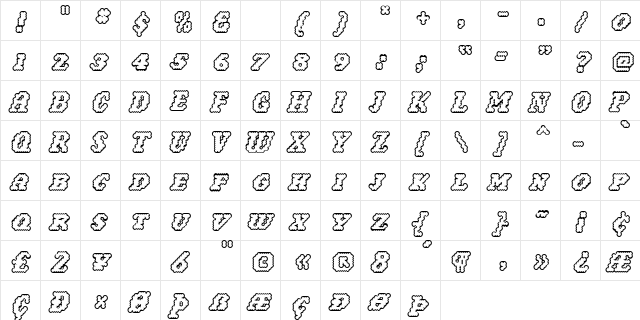
WoollyOutline Regular
| Designer | Philboyd Studge |
Design Context for WoollyOutline Typeface
WoollyOutline brings ornamental detail and strong personality to headlines and identities, where visual impact matters more than quiet functionality.
Font Pairing: Pair with a clean neutral sans-serif for body copy to let WoollyOutline's character lead without overwhelming the composition.
Pro Tip: Use WoollyOutline exclusively at display sizes — it was designed to be seen, not read at length. Let a neutral companion handle body copy.